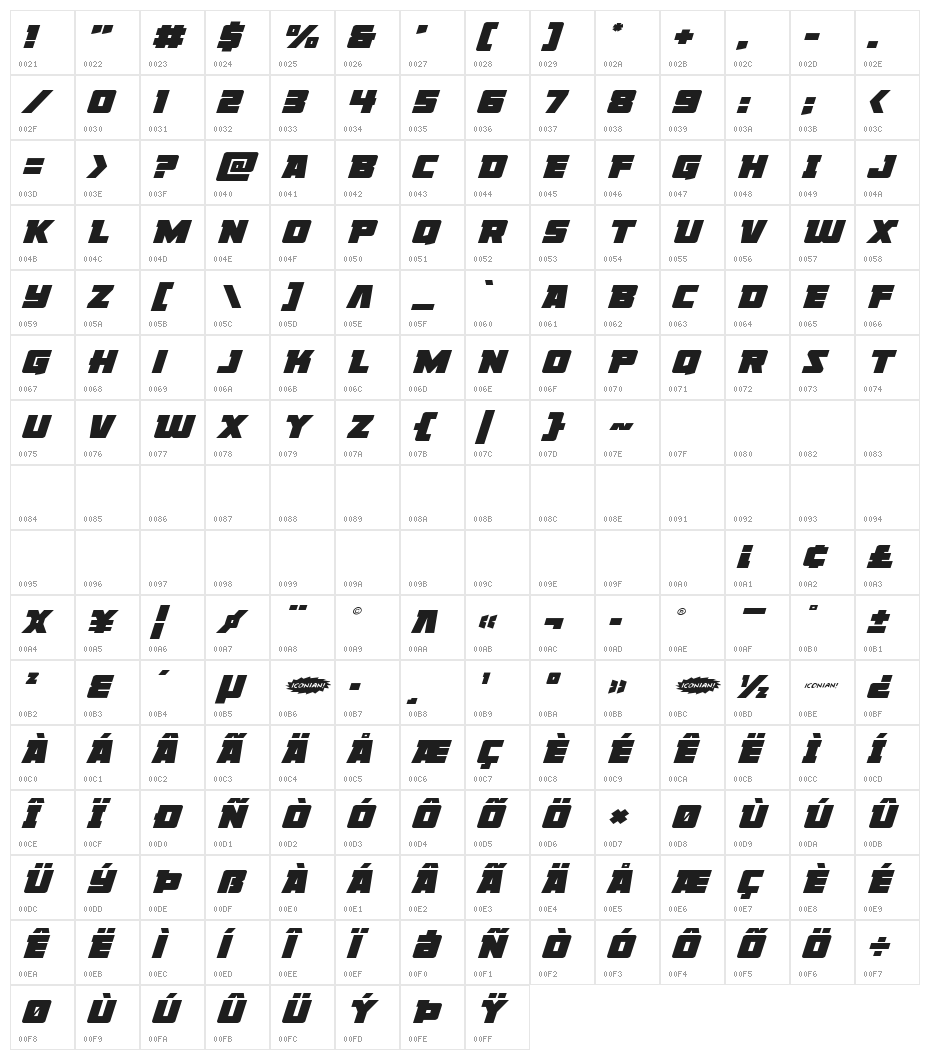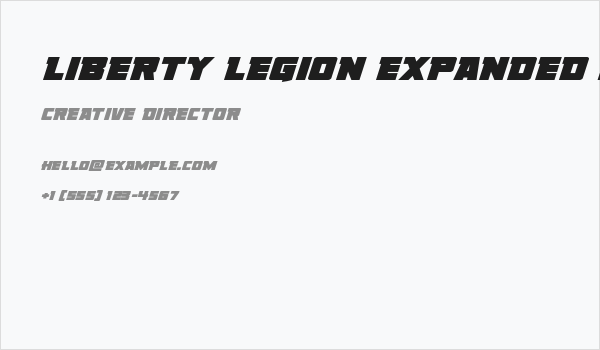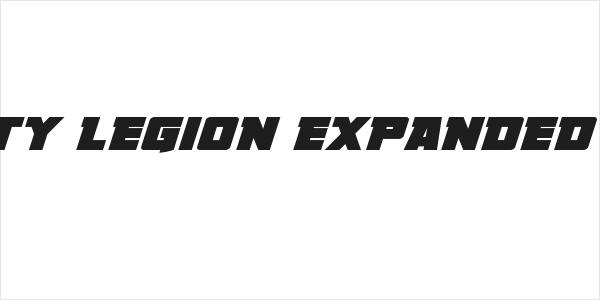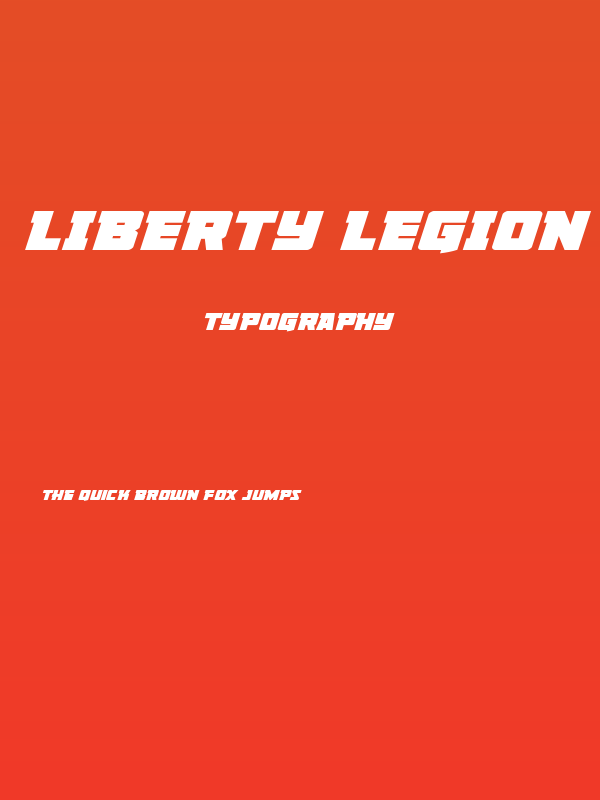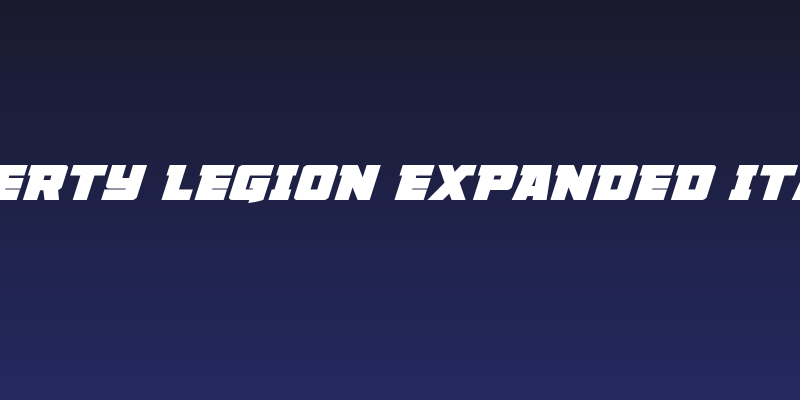
Liberty Legion Expanded Italic Font
Liberty Legion Expanded Italic Description
This font features a bold, italicized style with an expanded width, giving it a strong and dynamic appearance. The characters are designed with sharp angles and a slightly futuristic look, making them stand out prominently. The uppercase letters are particularly striking, with a consistent slant that adds a sense of motion and energy. The numbers and special characters maintain the same bold and italicized characteristics, ensuring uniformity across all glyphs. This font's design is ideal for projects that require a modern and impactful visual presence.
| Proposed Projects | Ideal for sports branding, action movie posters, video game titles, and dynamic advertising campaigns. |